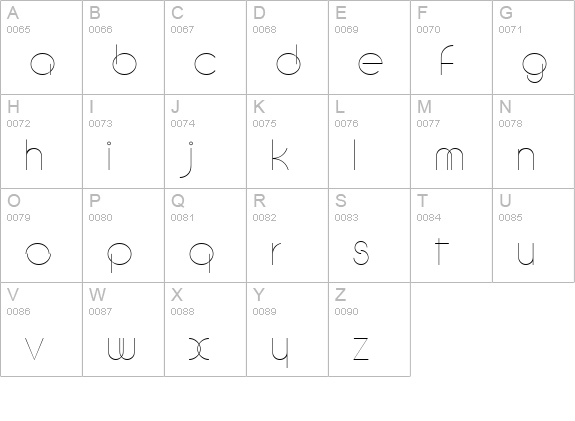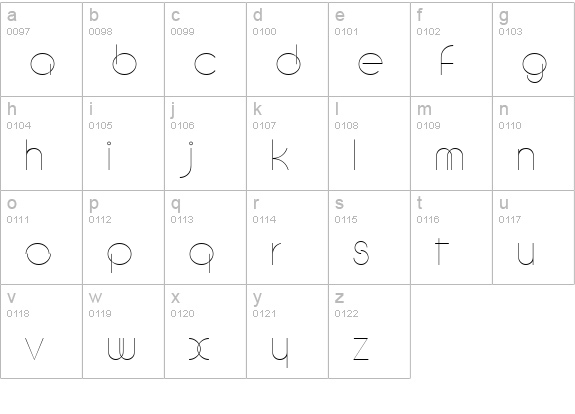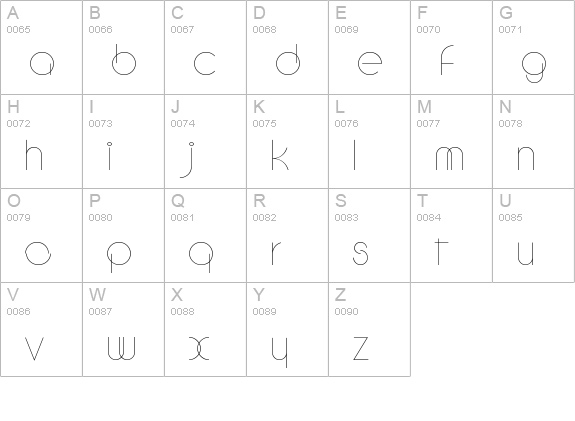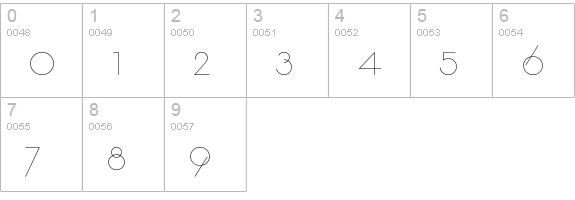
DebevicCircular Font Details
DebevicCircular is a stylish and elegant font that exudes sophistication and charm. Its circular design gives it a unique and modern look, making it perfect for a wide range of design projects. This versatile font is free to download at FontsMarket.com, allowing you to add a touch of class to your creations without breaking the bank. Whether you're working on a branding project, website design, or any other creative endeavor, DebevicCircular is sure to make a lasting impression. Let this free font be your go-to choice for all your design needs.